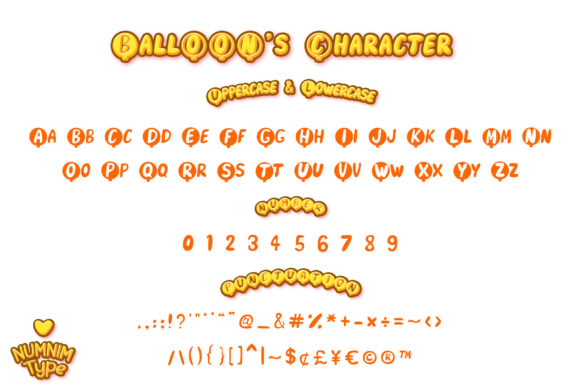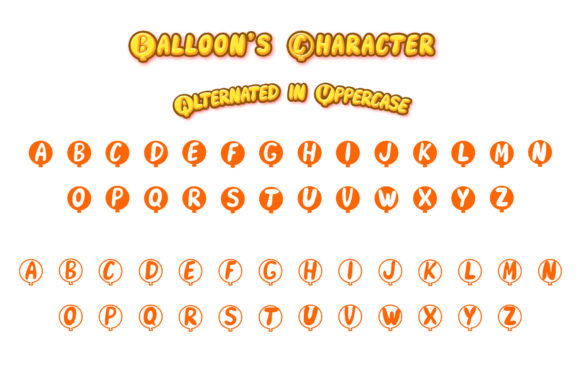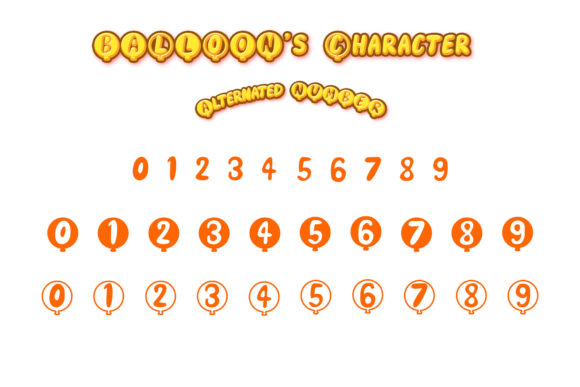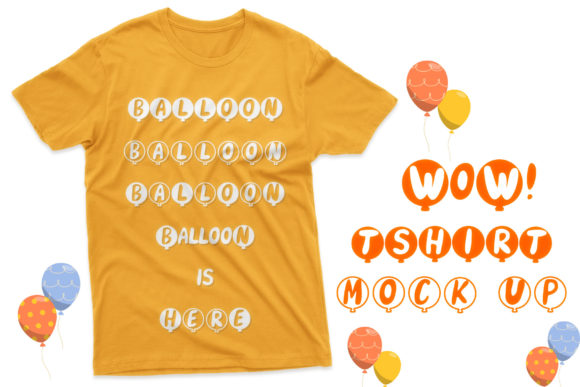
The Magic of Balloon Font: Adding Whimsy to Your Designs
I’ll never forget the time I was working on a project for a children’s birthday party invitation. I had the perfect concept, the ideal color palette, and the most adorable illustrations. However, I was stuck on finding the right font to bring it all together. That’s when I stumbled upon Balloon font, and it was love at first sight! 💕
Balloon embodies fun, quirkiness, and authenticity. This enchanting display font will turn any creative idea into a true standout. In this article, we’ll dive into the world of Balloon font, exploring its features, how to use it, and some similar fonts you might love.
An Honest Review of Balloon Font
What I Love About Balloon Font ✨
- ✅ Unique and playful design that adds a touch of whimsy to any project
- ✅ Highly legible, even in larger sizes
- ✅ Perfect for titles, headings, and short text
- ✅ Great for a variety of creative projects, from invitations to social media graphics
- ⚠️ May not be suitable for body text or longer paragraphs
- ⚠️ Limited availability of stylistic alternates, which might limit its versatility
Balloon font comes with a range of OpenType features and glyphs that can enhance your designs. Some of these features include:
- Ligatures: These are special character combinations that can add a touch of elegance to your text
- Stylistic alternates: These are alternative character designs that can add variety to your text
- Glyphs: These are special characters that can be used to add decorative elements to your text
The Backstory of Balloon Font
Balloon font was designed with one goal in mind: to bring a touch of whimsy and fun to your designs. The designer, inspired by the playful shapes of balloons, created a font that would capture the essence of childhood wonder and excitement.
The design process involved experimenting with different shapes, colors, and typography styles. The result is a font that’s both playful and elegant, perfect for a wide range of creative projects.
Q: What is Balloon font best used for?
A: Balloon font is perfect for titles, headings, and short text. It’s great for creative projects, such as invitations, social media graphics, and children’s party decorations.
Q: Can I use Balloon font for body text?
A: While Balloon font is highly legible, it’s not recommended for body text or longer paragraphs. Its playful design is better suited for titles and headings.
Q: Is Balloon font available in different styles?
A: Balloon font comes in a range of styles, including regular, bold, and italic. However, it’s not a highly extensive font family, so you may need to get creative with your design.